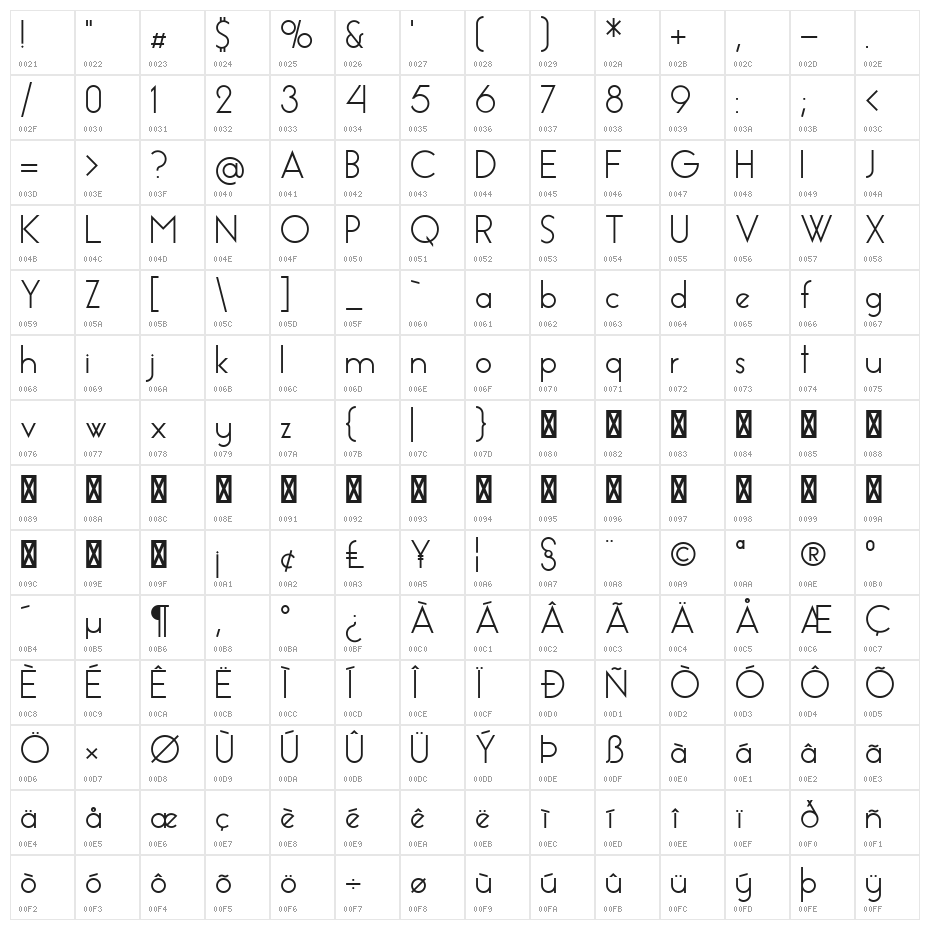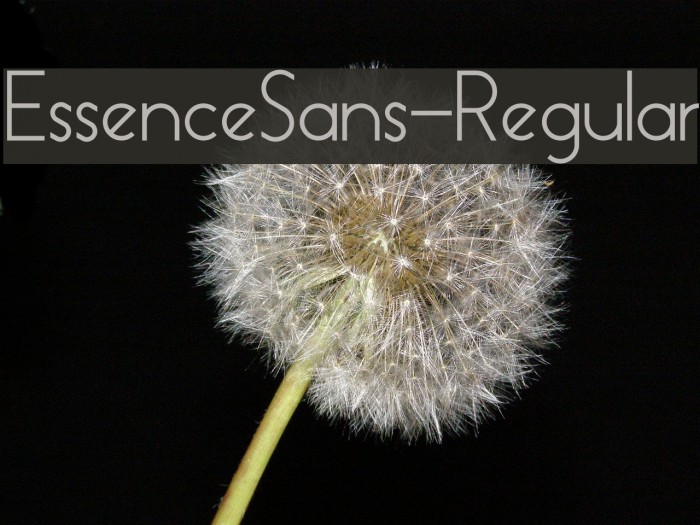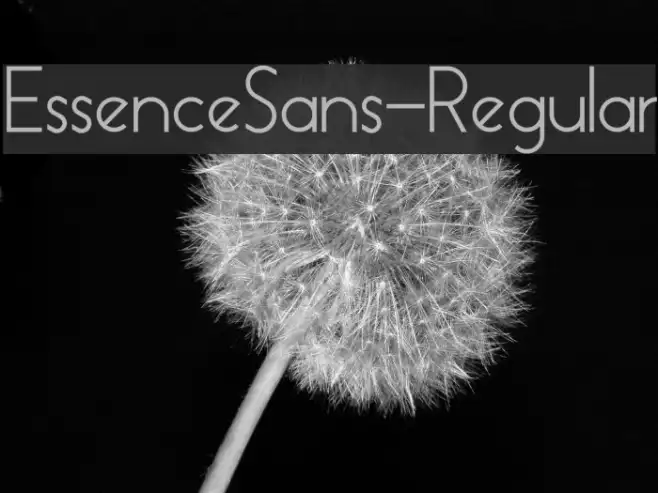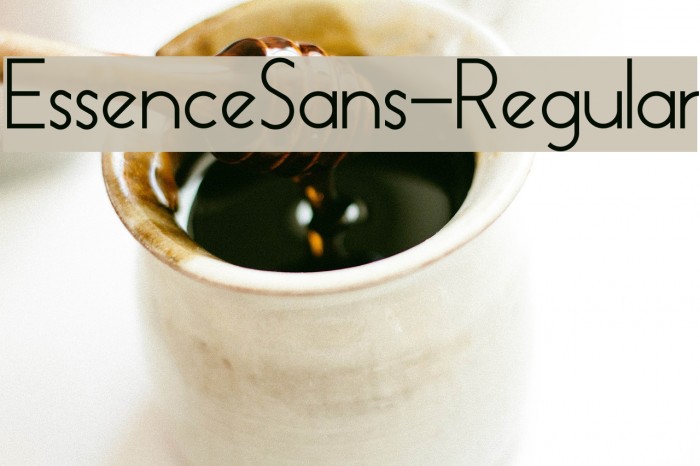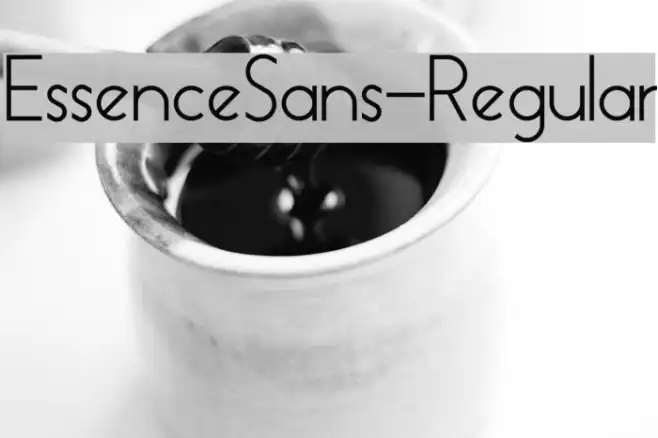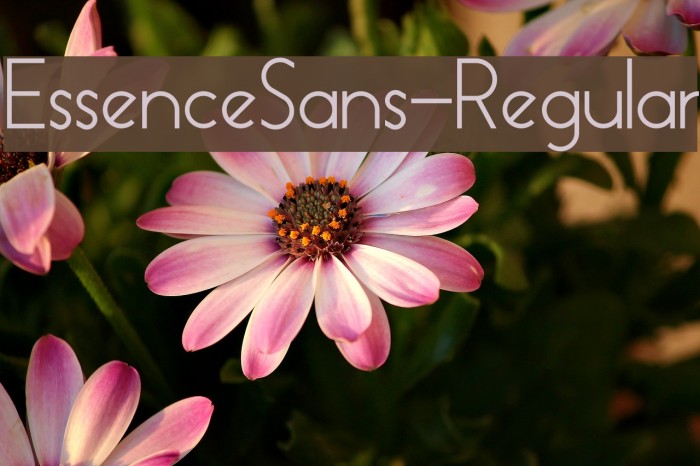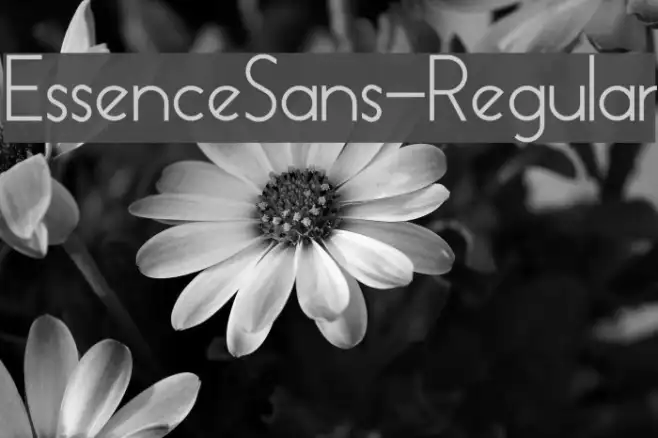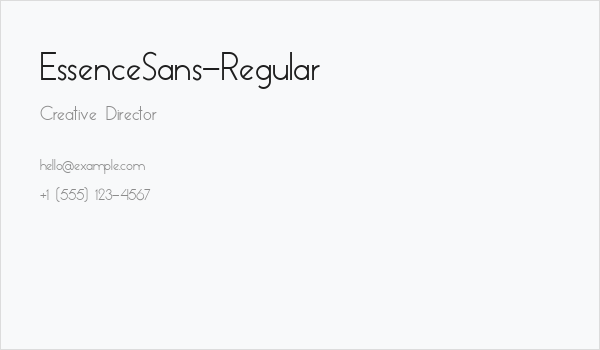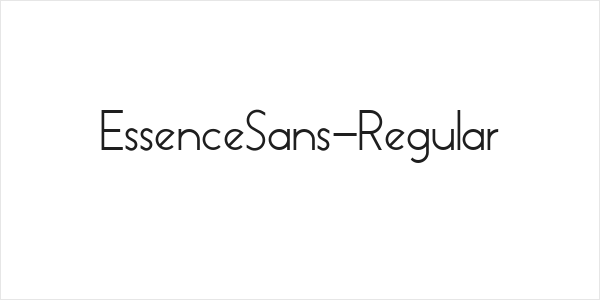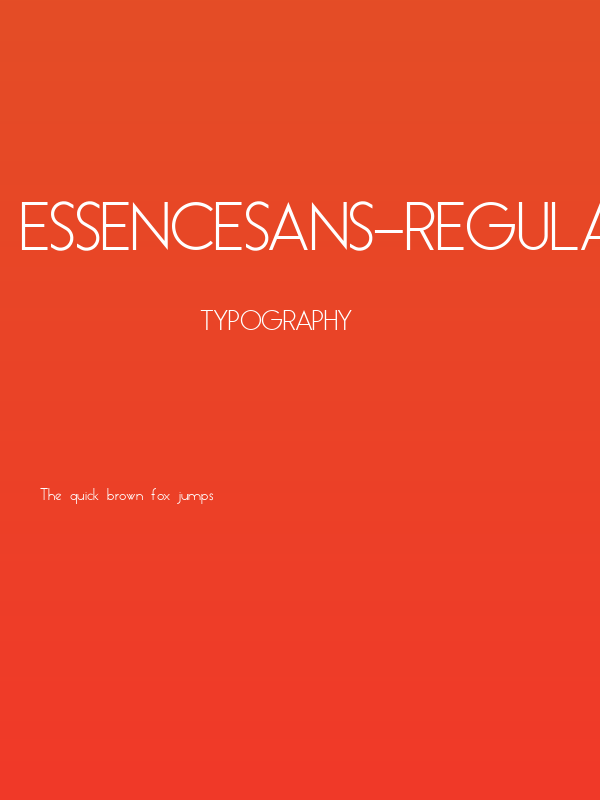
EssenceSans-Regular Font
EssenceSans-Regular Description
This font exhibits a clean and modern sans-serif style, characterized by its geometric shapes and uniform stroke widths. The uppercase letters are tall and elegant, while the lowercase letters maintain a consistent roundness, offering a harmonious balance. The numerals are clear and legible, making them suitable for various applications. Special characters are well-defined, adding versatility to the font. Its simplicity and clarity make it ideal for contemporary design projects.
| Proposed Projects | Ideal for branding, advertising, web design, and editorial layouts where a modern and clean aesthetic is desired. |